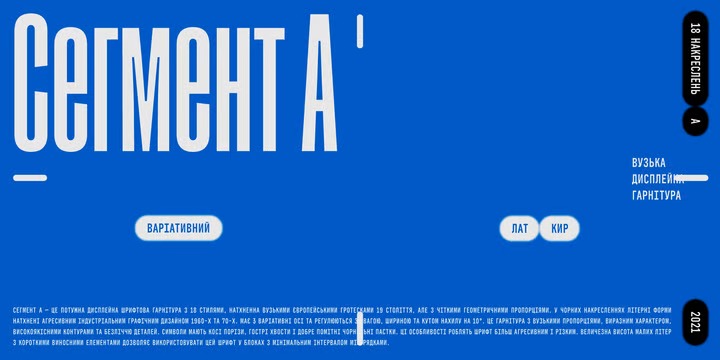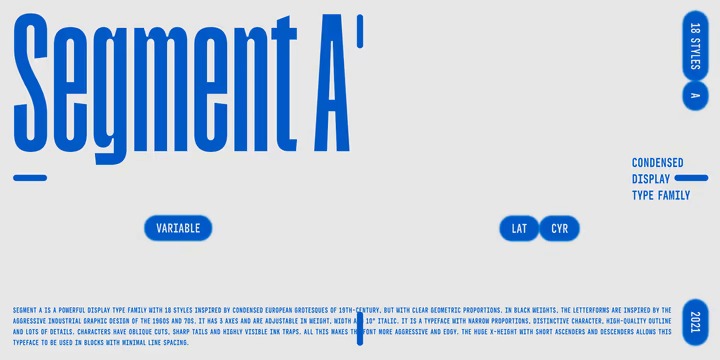
Segment A Type Font
Segment A Type Font is a bold Condensed sans serif font that features lowercase letters that reach the cap height. In Black weights, the letterforms are inspired by the aggressive industrial graphic design of the 1960s and 70s. Both have 3 axes and are adjustable in weight, width and 10˚ italic. It is a typeface with narrow proportions, distinctive character, high-quality outline and lots of details. Characters have oblique cuts, sharp tails and highly visible ink traps. All this makes the font more aggressive and edgy. The huge x-height with short ascenders and descenders allows this typeface to be used in blocks with minimal line spacing.